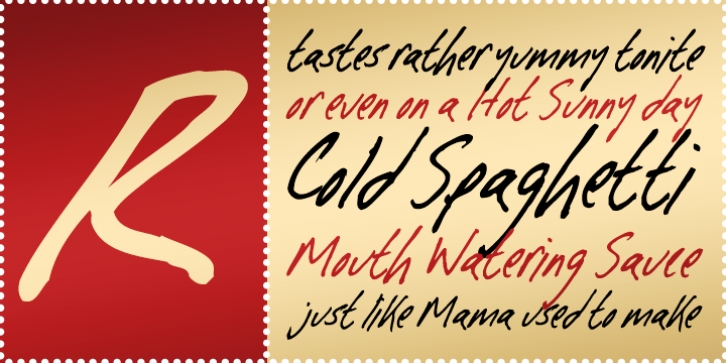
Cold Spaghetti so called in tribute to the “Down Under” children’s group the Wiggles, but was created in a style affectionatey referred to as chicken scratch due to its rushed and tall, skinny letters which appear as though they'd been created by an angry chicken peeling out at a dirt starting line.